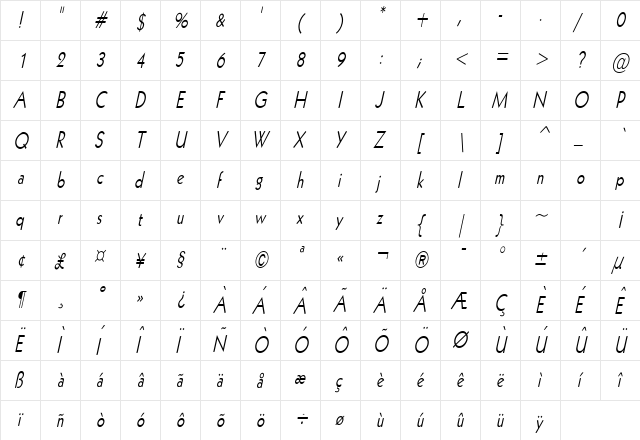
Geo 112 Thin Italic Font Preview
Design Context for Geo 112 Thin Typeface
Geo 112 Thin offers clean, dependable letterforms without strong stylistic allegiance, making it a practical choice for designers who need flexibility. Its italic angle brings a sense of urgency and motion to the letterforms. The delicate stroke weight brings airiness and refinement to layouts.
Pro Tip: Try Geo 112 Thin for annotation and caption copy alongside an upright companion — the contrast in angle creates a dynamic but ordered typographic system.